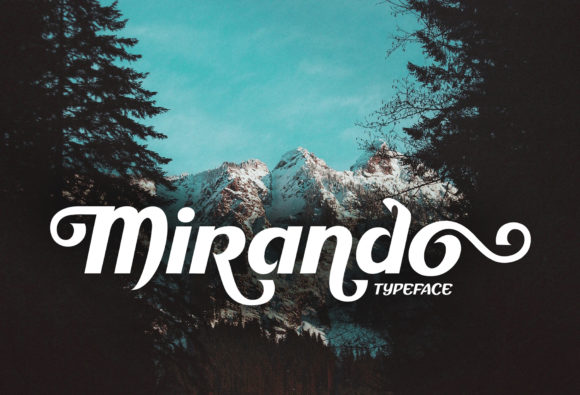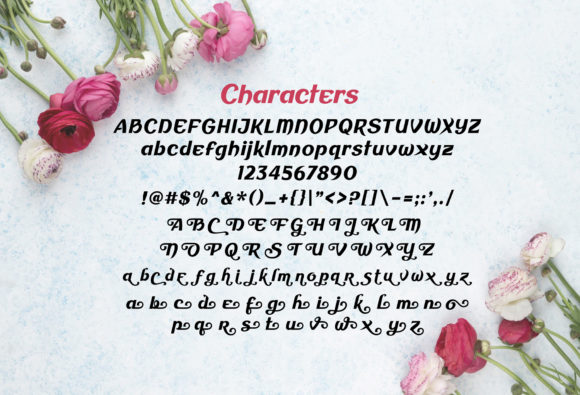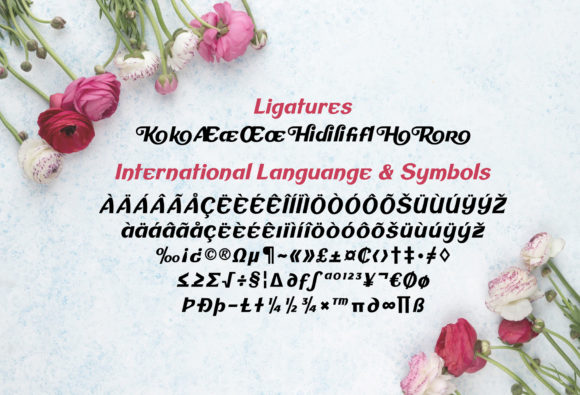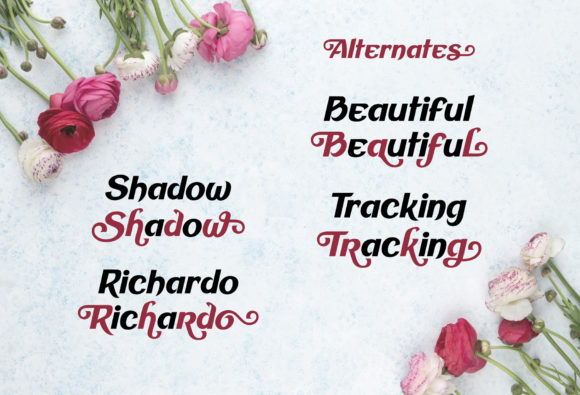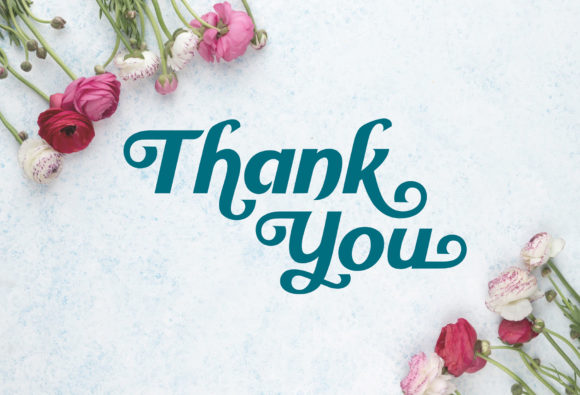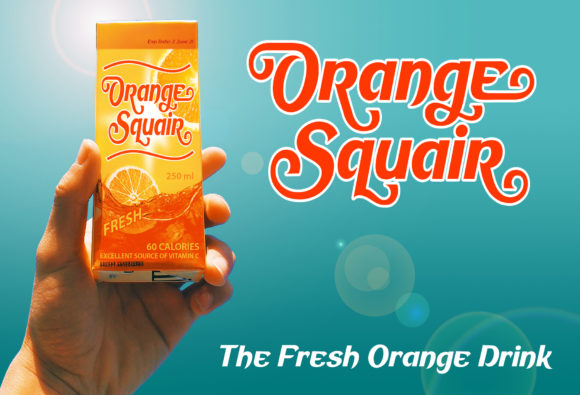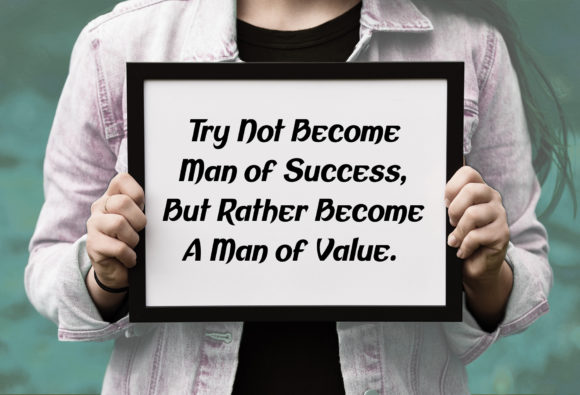
Mirando Font
About Mirando Font
Mirando is a minimal, yet elegant handwritten font. Suitable to a wide variety of designs due to its neat and simple style, Mirando has the potential to become your favorite go-to font, no matter the occasion!